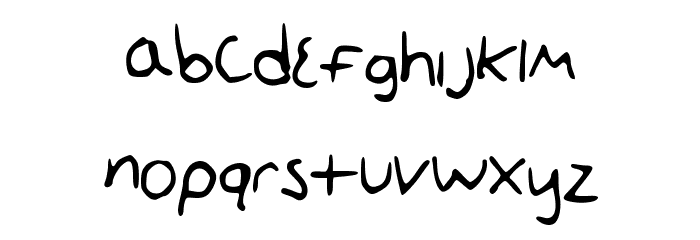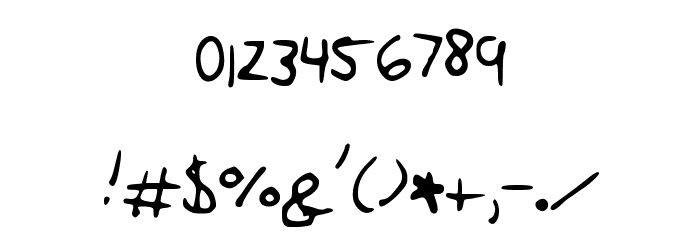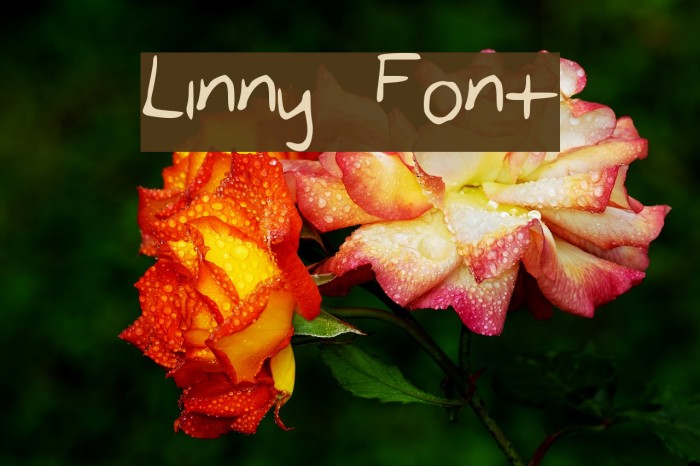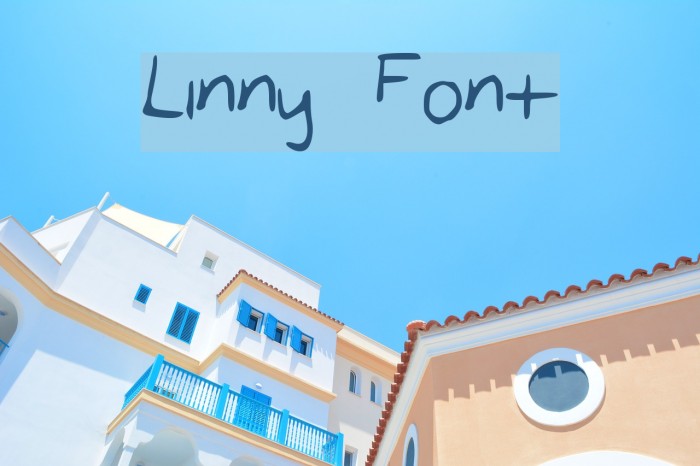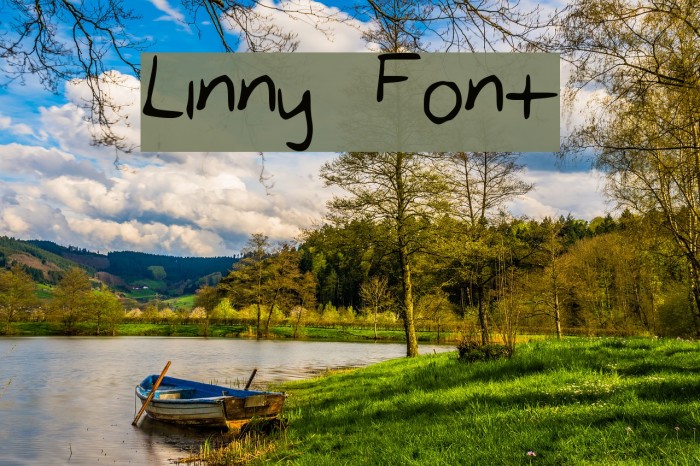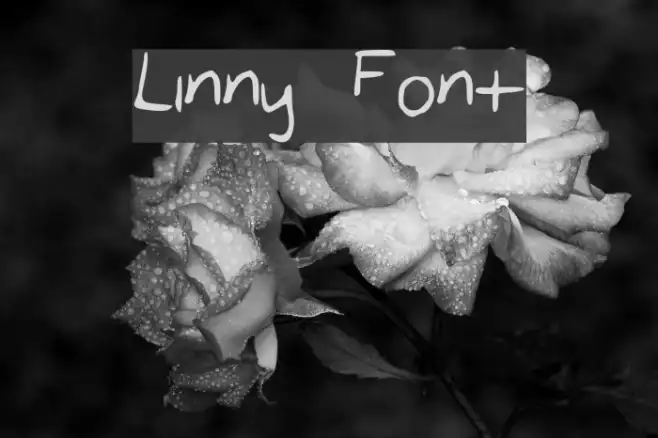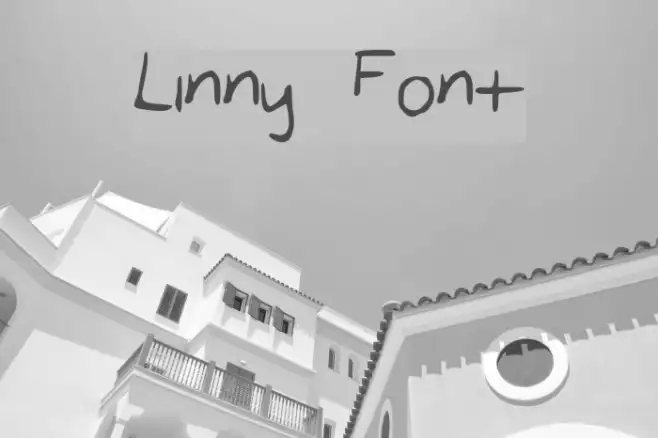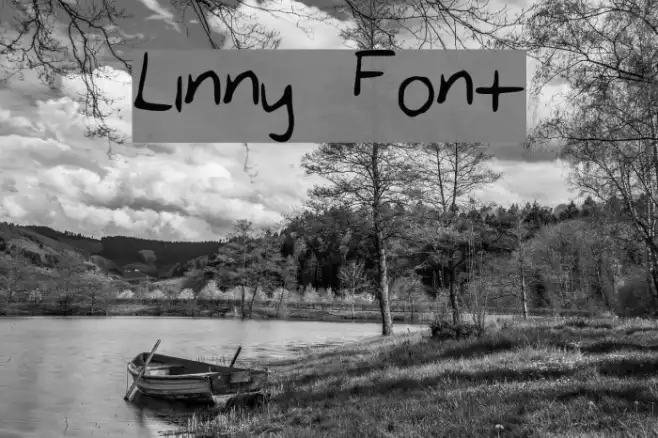
Linny Font
This font features a playful and casual handwritten style, characterized by its irregular strokes and organic flow. The letters have a natural, hand-drawn appearance, with varying line thickness that adds to its informal charm. The uppercase and lowercase letters maintain a consistent style, while the numerals and special characters complement the overall aesthetic. This font's unique personality makes it suitable for projects that require a personal touch or a relaxed vibe.
A playful, casual handwritten font with an organic flow.
- Proposed Projects: Ideal for greeting cards, personal invitations, children's books, and creative branding projects.
- Overall Style: Casual
- Use Case: Headlines, Logos, Informal Text